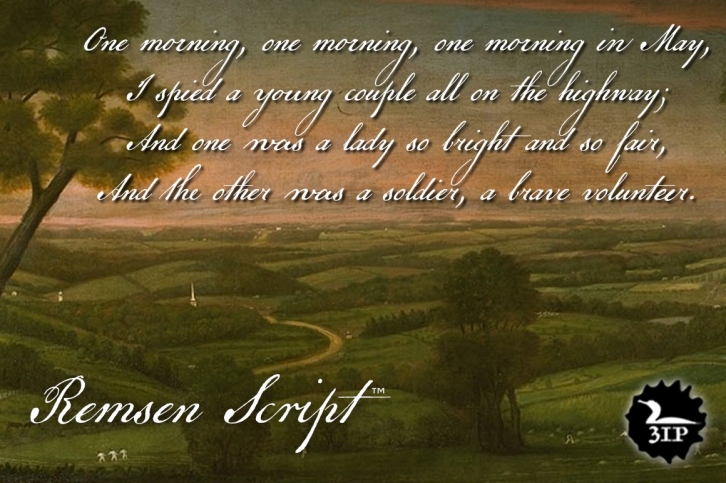
Remsen Script is an interpretation of the 18th-century handwriting on a three-page broadside addressed to “The Merchants and Manufacturers of Great-Britain†from “The Merchants And Traders of Philadelphia in the Province of Pensilvania [sic].†The document (rather politely) decries the oppressive taxation policies of the British Parliament in the wake of the notorious Stamp Act of 1765. Remsen Script is an authentic simulation of the engrossing penman’s formal period script—from its broad antique flourishes to its subtle unevenness and gently ragged strokes. Useful for event announcements, fine product packaging, recreations of historical documents, or anywhere you wish to offer a whiff of a bygone era. Comes with more OpenType features than chests of tea in Boston Harbor, including alternate uppercase styles, scores of authentic ligatures, lining and old-style figures, ink blots, ornaments, and complete Central/Eastern European alphabets—nearly 1,000 glyphs in all.